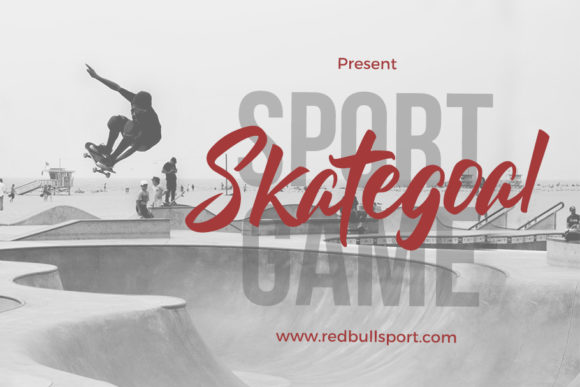
Step into the world of Backabon Font, the display font that exudes boldness and urban flair. This unique creation from Hustletter is a masterpiece engineered to infuse your digital designs with a dynamic and captivating spirit. Its sharp lines and confident strokes are guaranteed to make a statement, whether you're crafting logos, posters, social media graphics, or website headers.
Backabon Font is not just a font; it's an attitude, a reflection of your bold and unapologetic style. Embrace the power of typography and let your designs roar with the urban edge of Backabon. Its distinct character will amplify your message, leaving an unforgettable impression on your audience.
With Backabon Font, you'll effortlessly elevate your designs to new heights. Its versatility knows no bounds, seamlessly adapting to various creative endeavors. Make your brand stand out with a logo that commands attention, or captivate your followers with social media posts that pop. From posters that demand a second glance to website headers that leave a lasting impact, Backabon Font is your trusted companion in the world of digital design.
Unlock the gateway to limitless creativity with Backabon Font. Its bold personality will ignite your imagination and fuel your desire to create designs that resonate with your audience. Let Backabon Font be your partner in crafting visual wonders that speak volumes. Unleash your inner artist and make a statement that echoes through the digital realm.